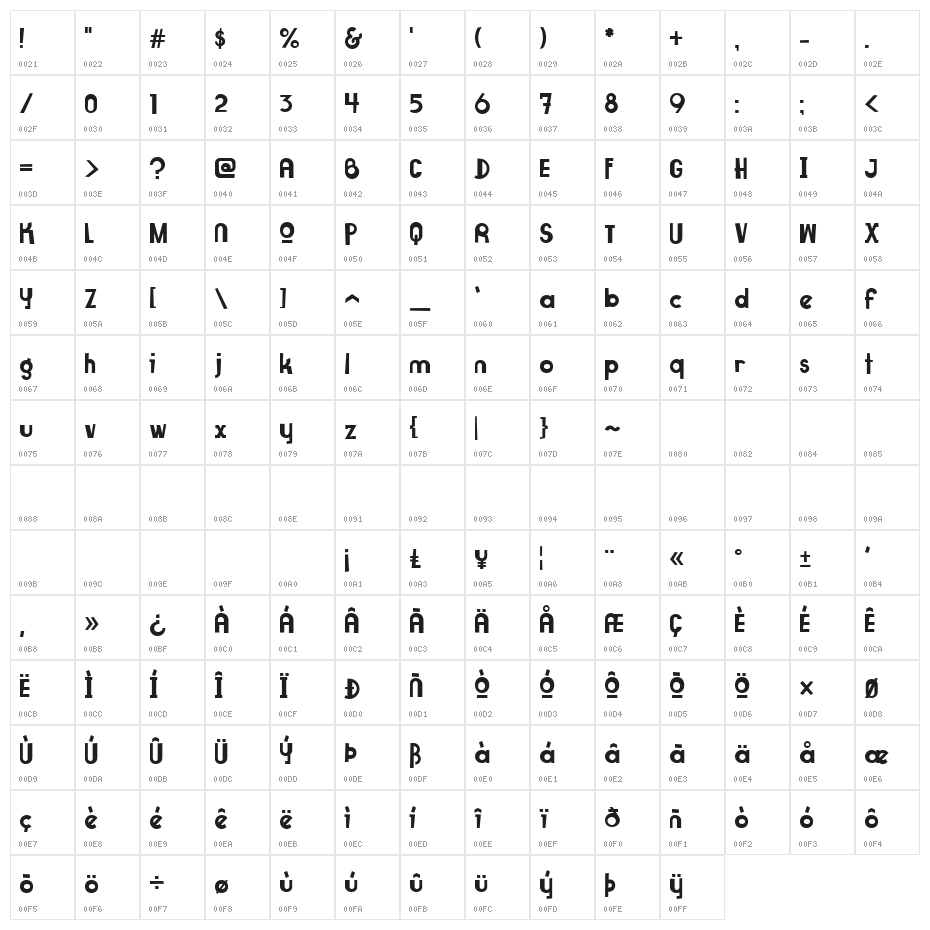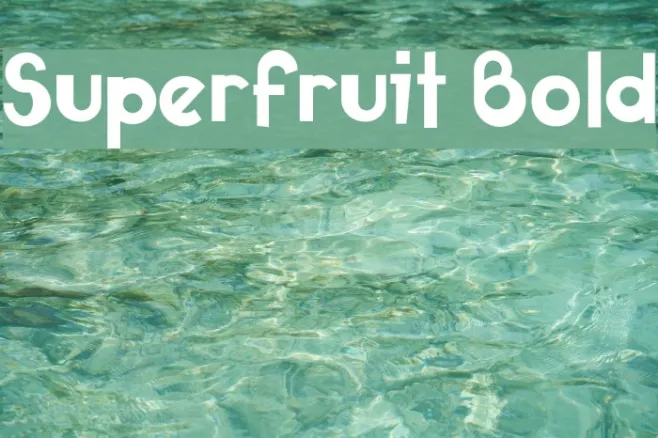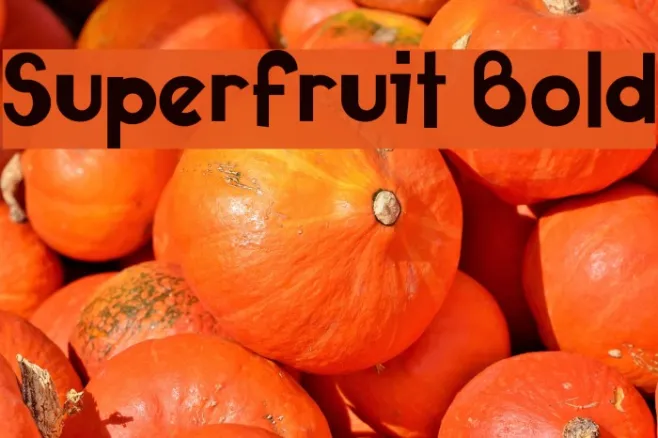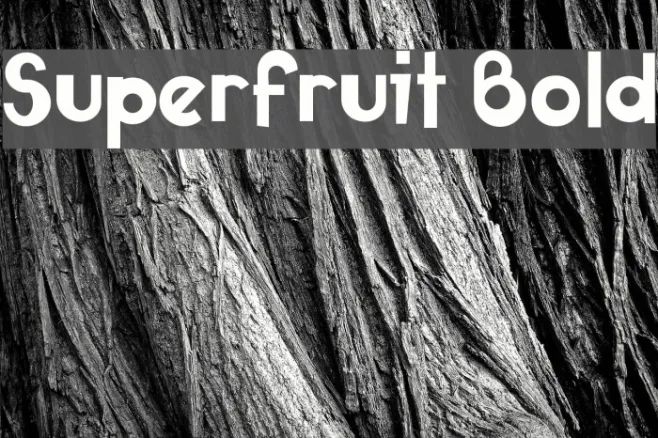
Superfruit Bold Font
Superfruit Bold Description
This font features a bold and playful design with a modern twist. The characters are distinctly geometric, with a mix of sharp angles and smooth curves that create a dynamic and engaging appearance. The uppercase letters are particularly striking, with unique shapes that stand out, while the lowercase letters maintain a consistent style that complements the overall look. The numerals are clear and easy to read, making them suitable for various applications. Special characters are well-designed, adding to the font's versatility. This font's boldness and unique style make it ideal for projects that require a strong visual impact.
| Proposed Projects | Ideal for branding, posters, headlines, and any project needing a bold, eye-catching typeface. |